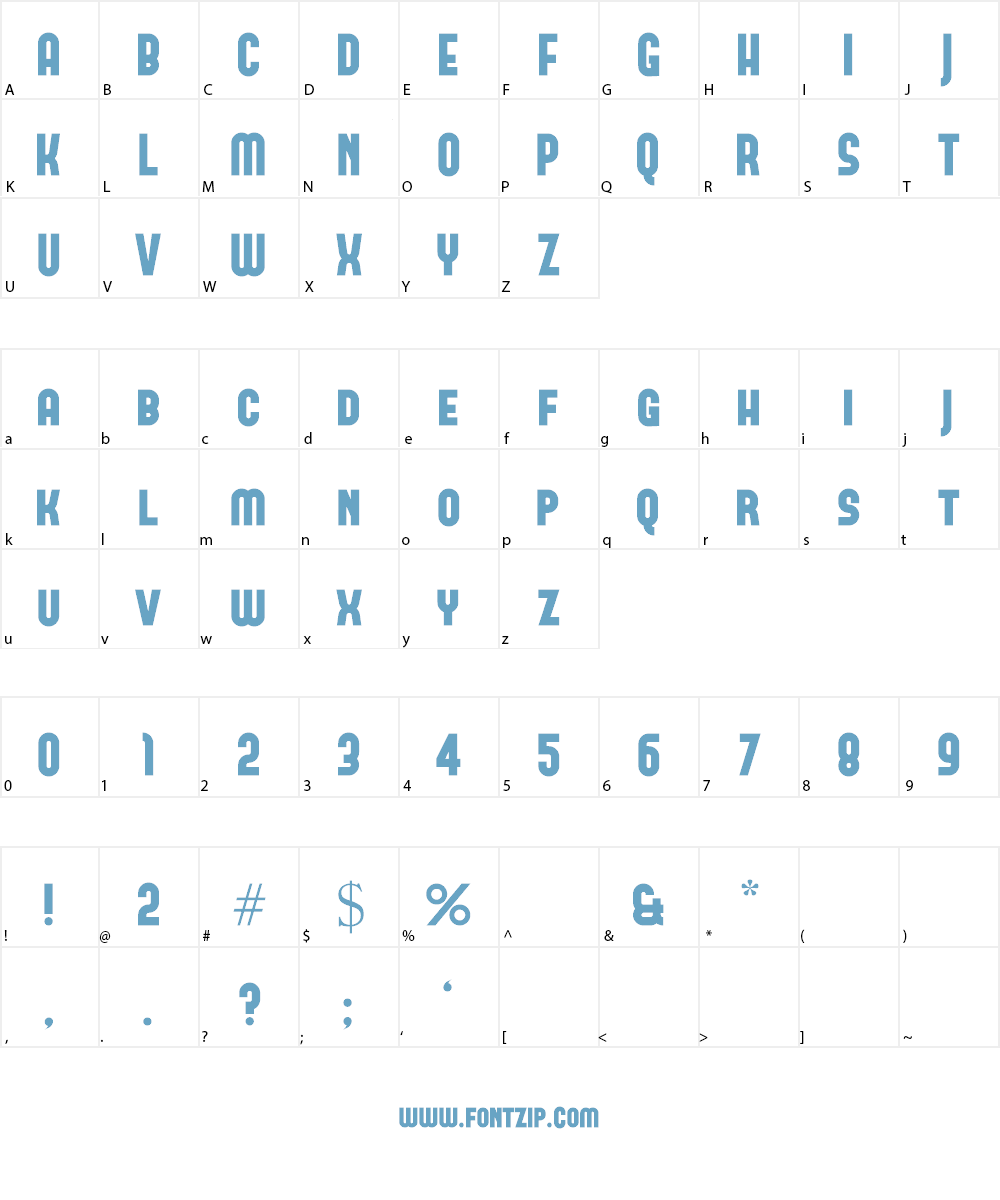
A font that looks like it's designer; big, old and fat. I needed a font for a 3D model of an old movies studio, and I made this. No lower case, only small caps.